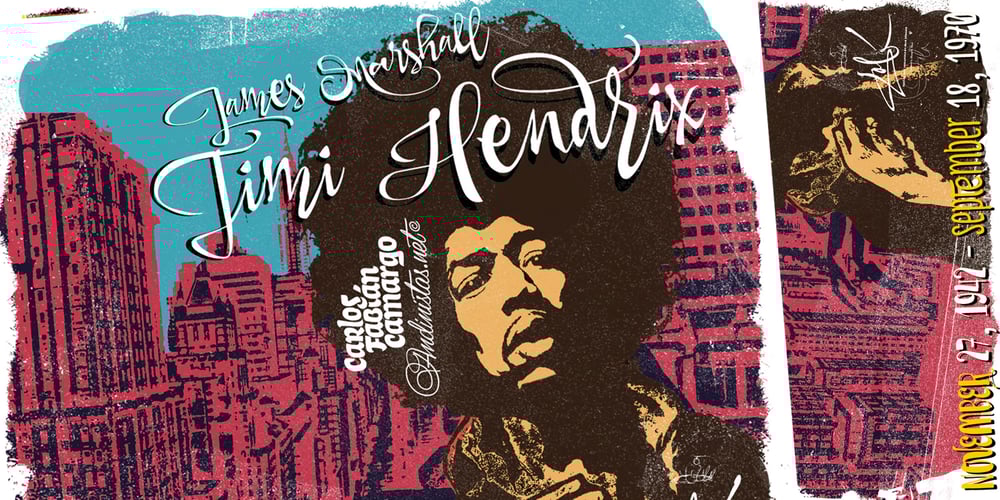
Draw
Draw font
Draw Font Family was designed by Carlos Fabián Camargo Guerrero and published by Andinistas. Draw contains 5 styles and family package options. Draw is a type family designed by Carlos Fabian Camargo G. Draw emphasizes the abundance of useful features to design messages with artistic purposes, spontaneous and vernacular, usually dressed in imaginative ideals to compose words, apparently drawn freehand. Draw is intended to be used in the context of graphic design as vogue, restaurants, weddings, art, clothing or imaginative supports where crafts and romance predominates. Draw contains professional typographic OpenType strategies to grant special character content: ligatures, swash and more.